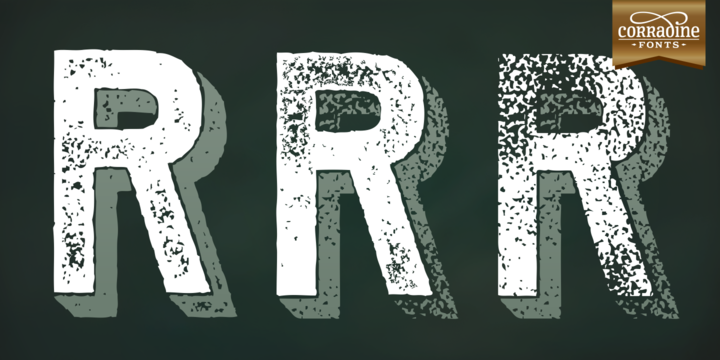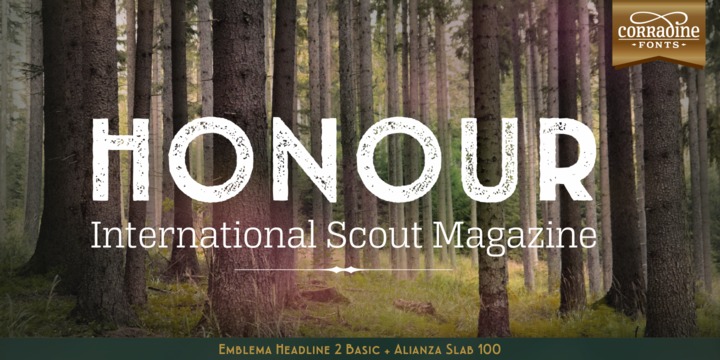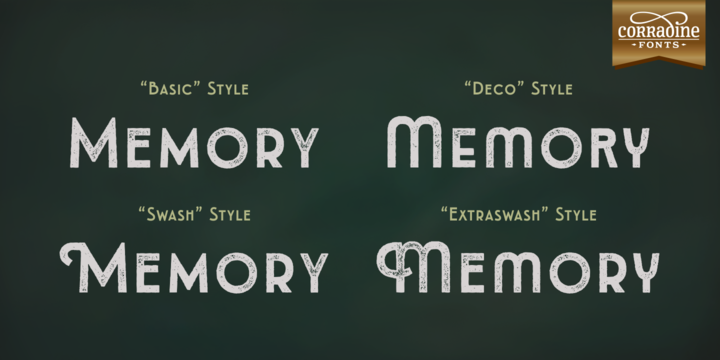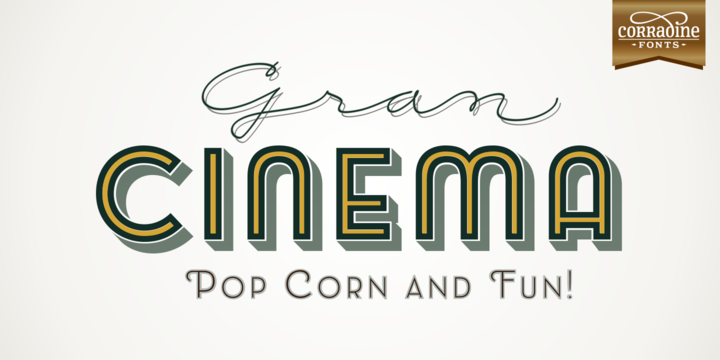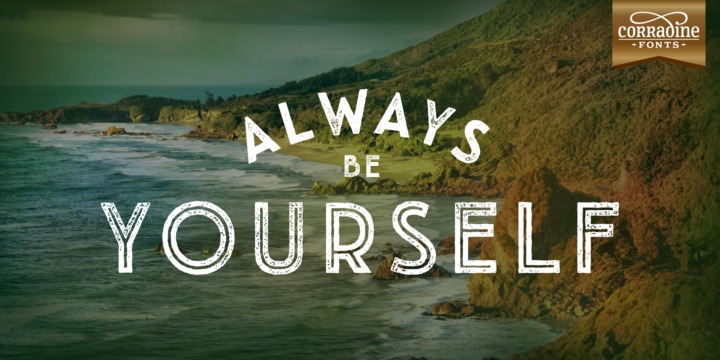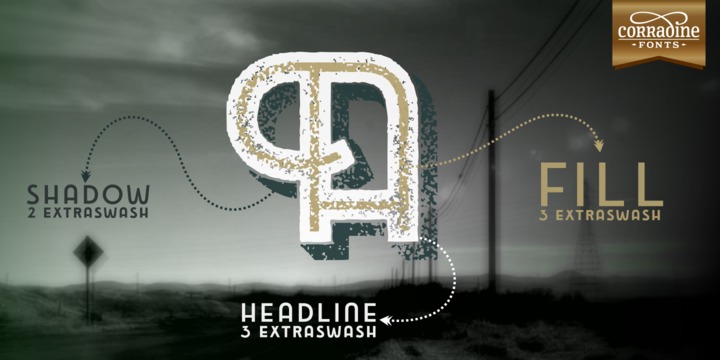
Introducing Emblema Headline: A Timeless Art Deco Font Family
Are you a designer or crafter looking for a font that exudes elegance and sophistication? Look no further than Emblema Headline, a stunning font family inspired by the Art Deco style of the early 20th century. With its geometric shapes and clean lines, Emblema Headline is the perfect addition to any design project that requires a touch of luxury and glamour.
What is Emblema Headline?
Emblema Headline is an evocative font family that pays homage to the Art Deco style of the 1920s and 1930s. Characterized by its geometric shapes, metallic materials, and ornate decorations, Art Deco was a popular design movement that influenced architecture, fashion, and visual arts. Emblema Headline captures the essence of this iconic style, bringing a sense of nostalgia and refinement to any design.
Key Features of Emblema Headline
- Geometric Shapes: Emblema Headline features geometric shapes, such as triangles, circles, and squares, which give it a clean and modern look.
- Art Deco Inspiration: The font family is inspired by the Art Deco style of the early 20th century, making it perfect for designs that require a touch of luxury and glamour.
- Clean and Modern: Despite being inspired by a vintage style, Emblema Headline has a clean and modern look that makes it suitable for a wide range of design applications.
- Versatile: Emblema Headline is a versatile font family that can be used for various design projects, from branding and advertising to packaging and digital media.
Why Choose Emblema Headline?
So, why should you choose Emblema Headline for your design project? Here are a few reasons:
- Unique Style: Emblema Headline offers a unique and distinctive style that will set your design apart from others.
- Elegance and Sophistication: The font family exudes elegance and sophistication, making it perfect for designs that require a touch of luxury.
- Easy to Read: Despite its ornate style, Emblema Headline is easy to read, making it suitable for body text and headlines.
- Highly Versatile: Emblema Headline can be used for various design applications, from print to digital media.
How to Use Emblema Headline
Emblema Headline is a versatile font family that can be used for various design projects. Here are a few ideas:
- Branding and Advertising: Use Emblema Headline to create stunning logos, posters, and advertisements that exude elegance and sophistication.
- Packaging Design: Add a touch of luxury to your packaging design with Emblema Headline, perfect for high-end products and premium brands.
- Digital Media: Use Emblema Headline for digital media, such as social media graphics, website headers, and email marketing campaigns.
- Crafting and DIY: Emblema Headline can also be used for crafting and DIY projects, such as making custom signs, invitations, and decorations.
| Font Name | Emblema Headline Family Font |
| Author | Corradine Fonts |
In conclusion, Emblema Headline is a stunning font family that offers a unique and distinctive style inspired by the Art Deco style of the early 20th century. With its geometric shapes, clean lines, and elegant feel, Emblema Headline is perfect for designers and crafters looking to add a touch of luxury and sophistication to their design projects. Whether you’re working on branding and advertising, packaging design, digital media, or crafting and DIY projects, Emblema Headline is a versatile font family that is sure to impress.